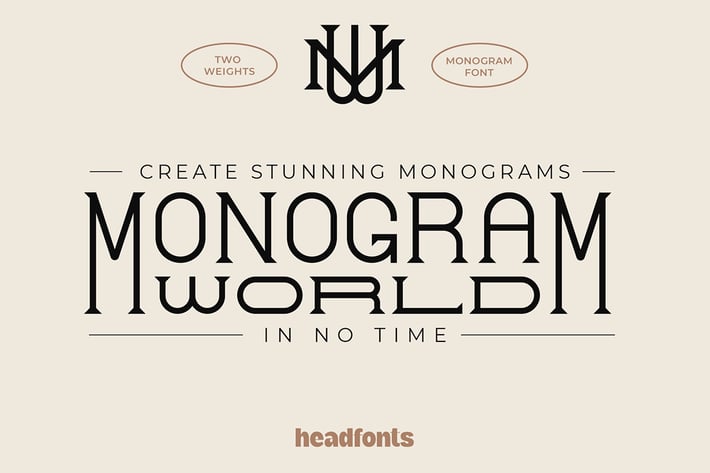
Monogram World Serif
MONOGRAM WORLD SERIF is a serif font specially designed for creating stunning monograms in no time. Monogram World Serif includes two weights, Regular and Bold with uppercase and lower uppercase characters. This font has endless combinations. Each letter was designed to perfectly combine with the others easily and with great results. The uppercase letters are tall and narrow, while the lower uppercase letters are wider and short bodied. For a successful monogram, you simply have to type an uppercase letter and a lower uppercase letter, and you will have an outstanding monogram. Furthermore, for even more variations you can choose the weight you prefer, from really thin lines to a more consistent stroke thickness. In this font, you will find over 380 monograms as a ligature glyph. Additionally, included in this package you will find a bonus of 20 premade badges and 10 high-resolution textures, all used in this presentation. Monogram World Serif font is versatile and suitable for almost any design from monogram logos to minimal packaging design, just let your creativity break free!
- 380+ monogram ligatures
- Upper and lower uppercase font